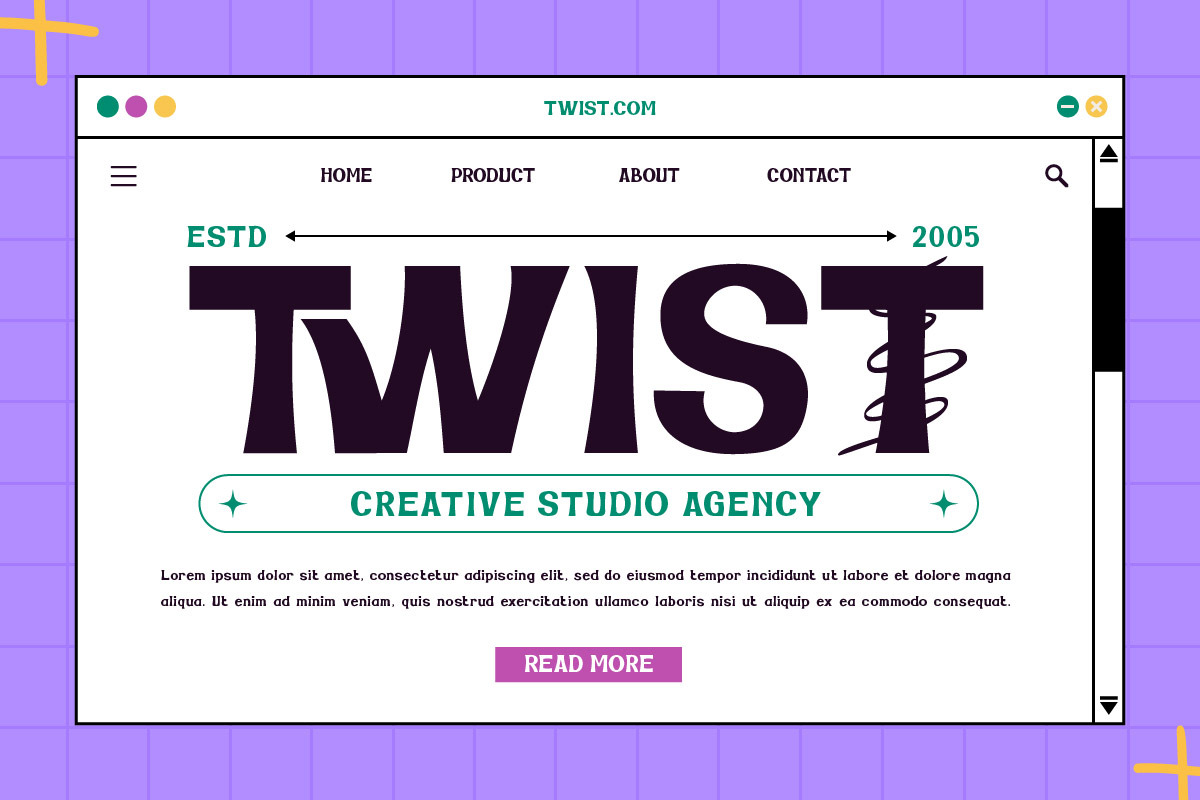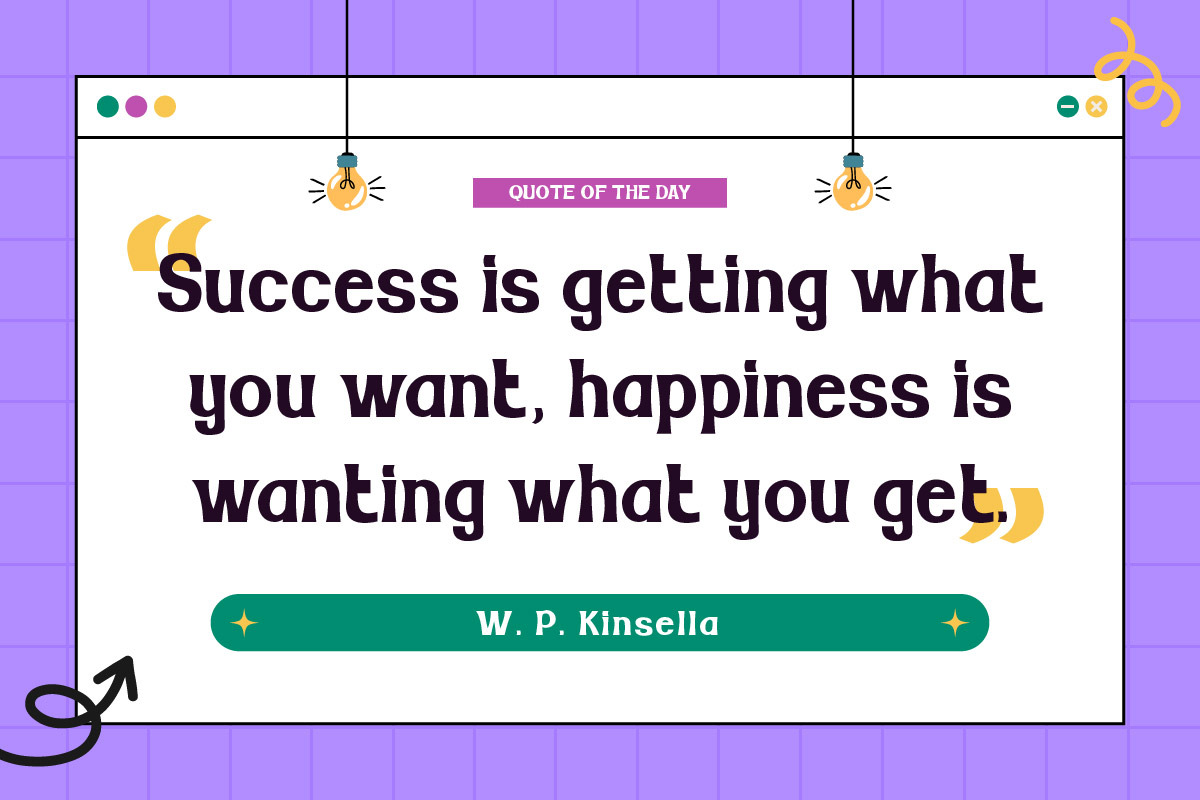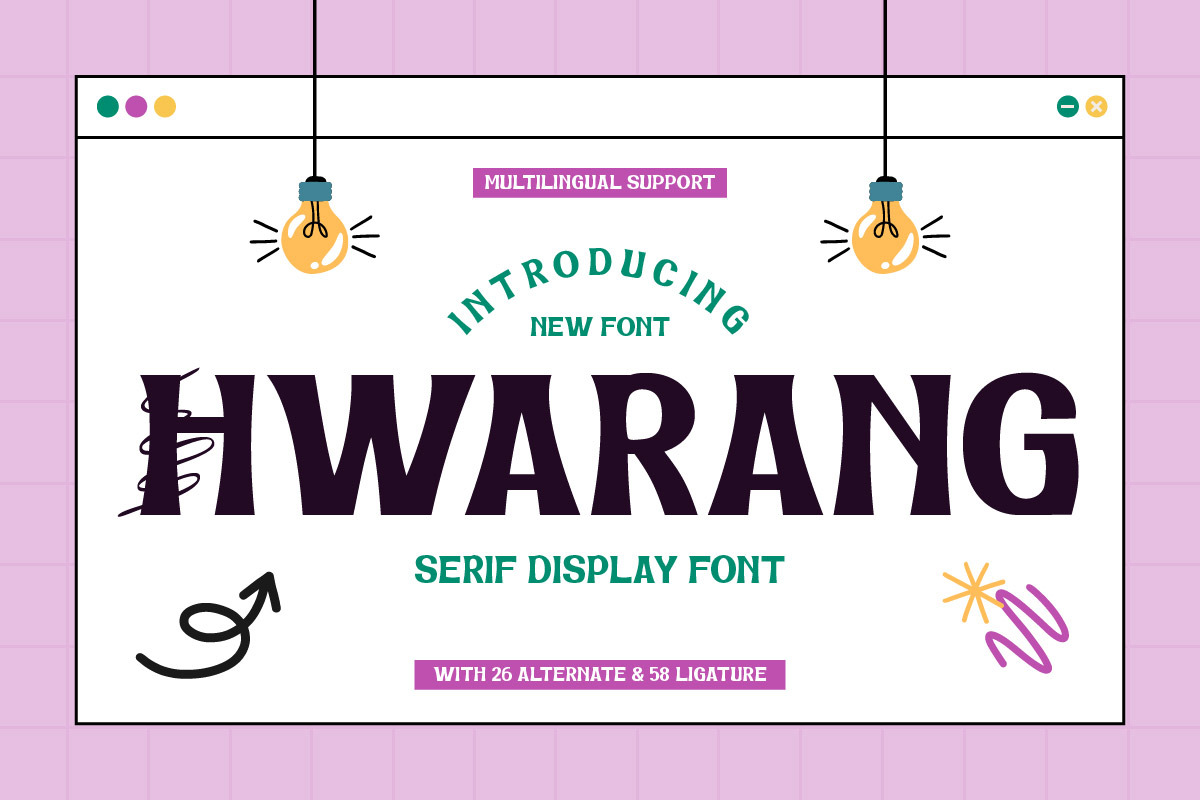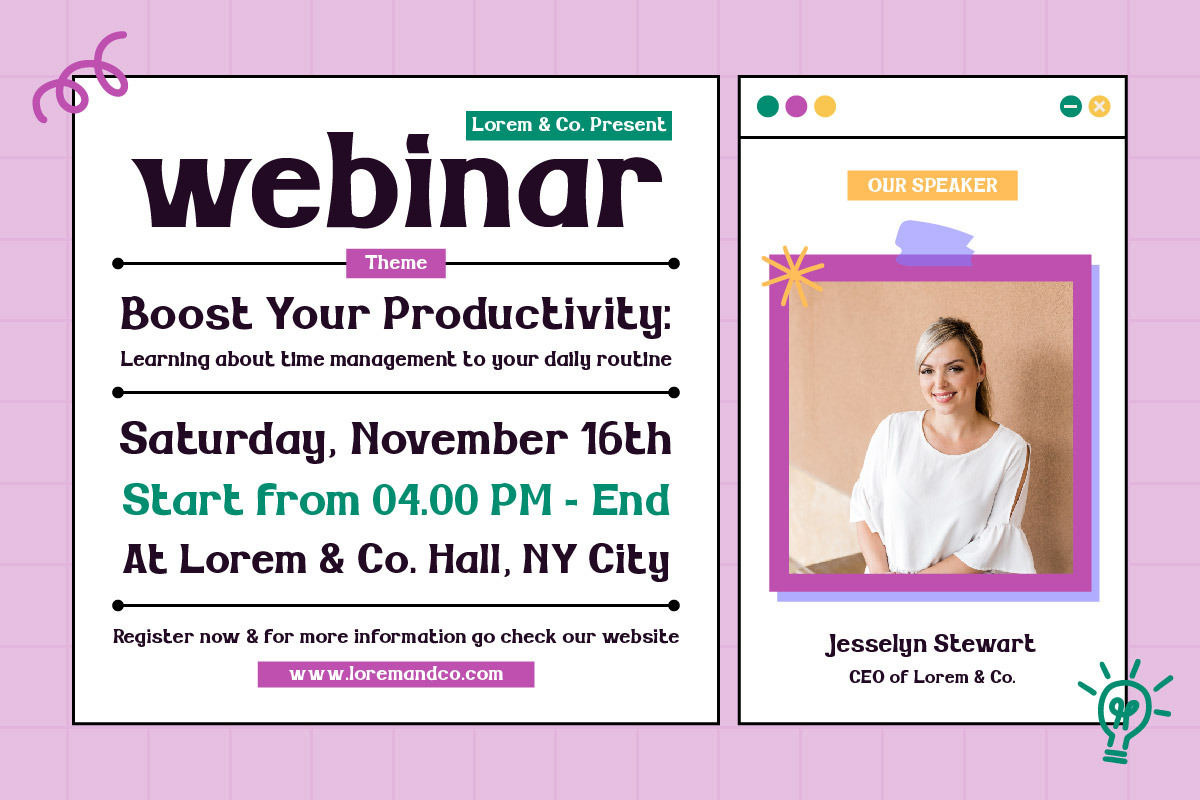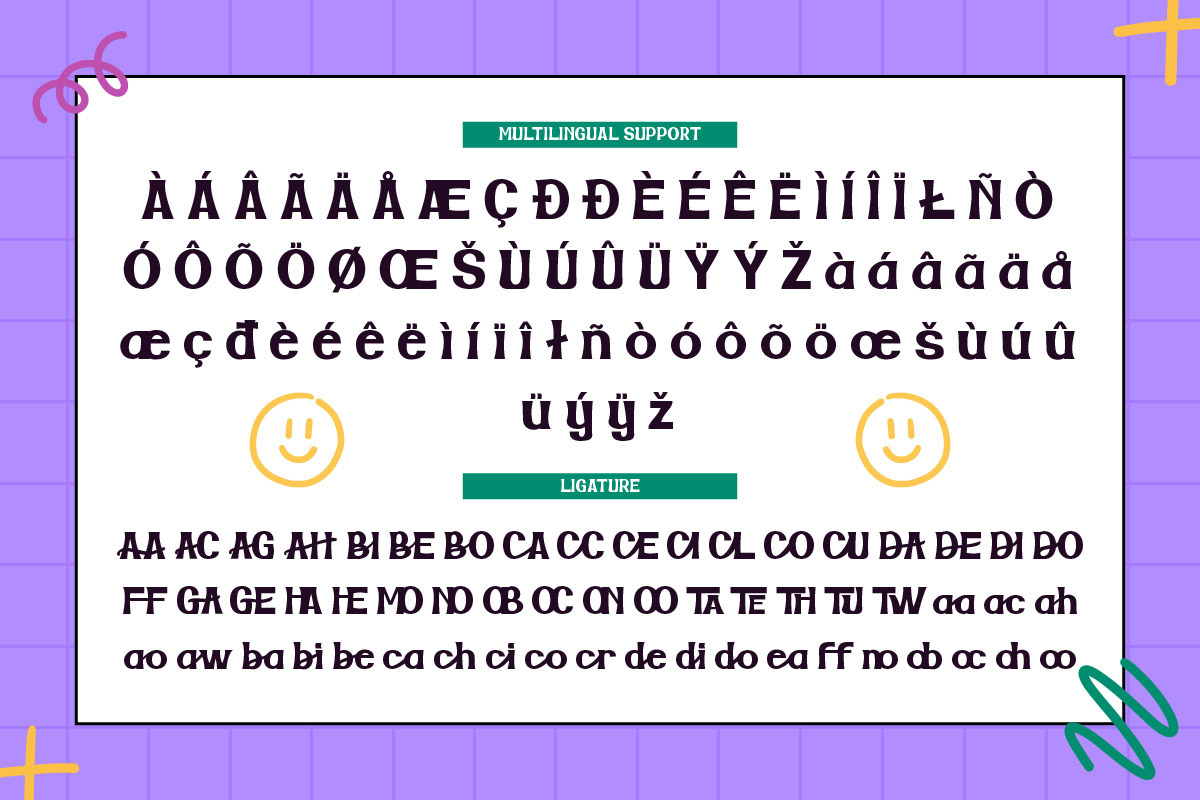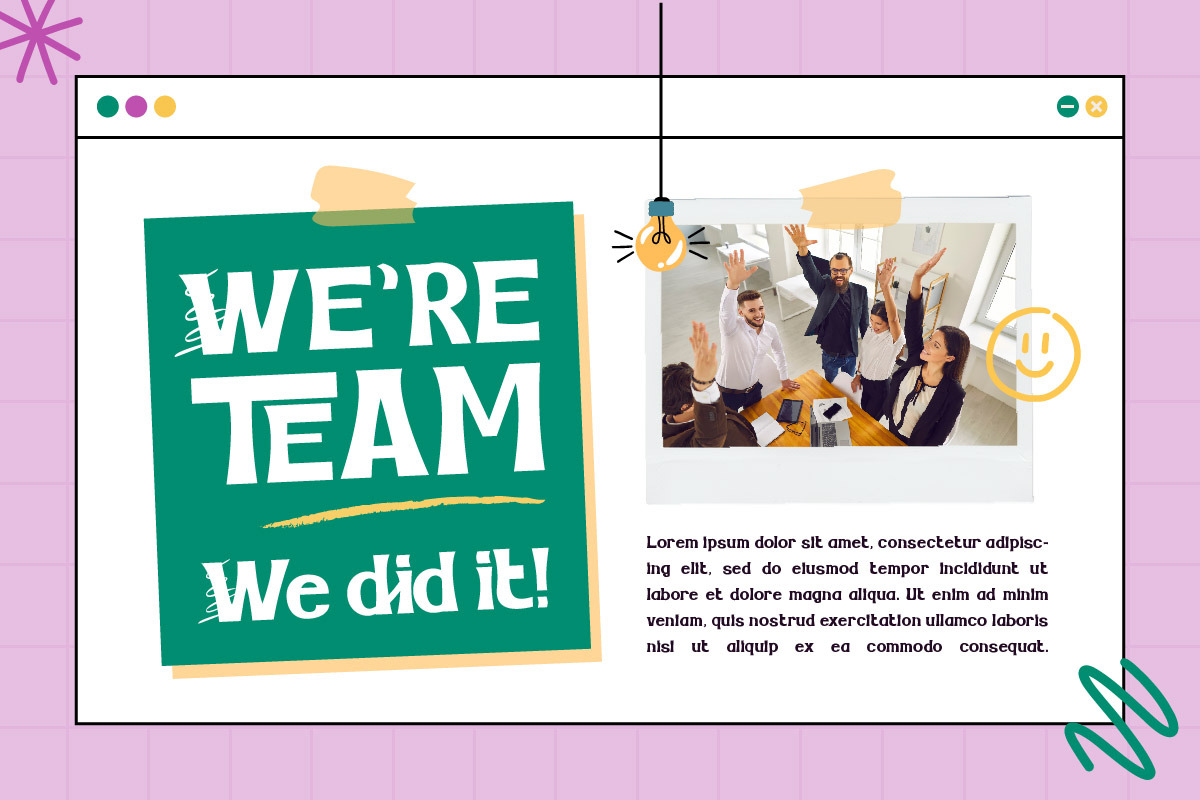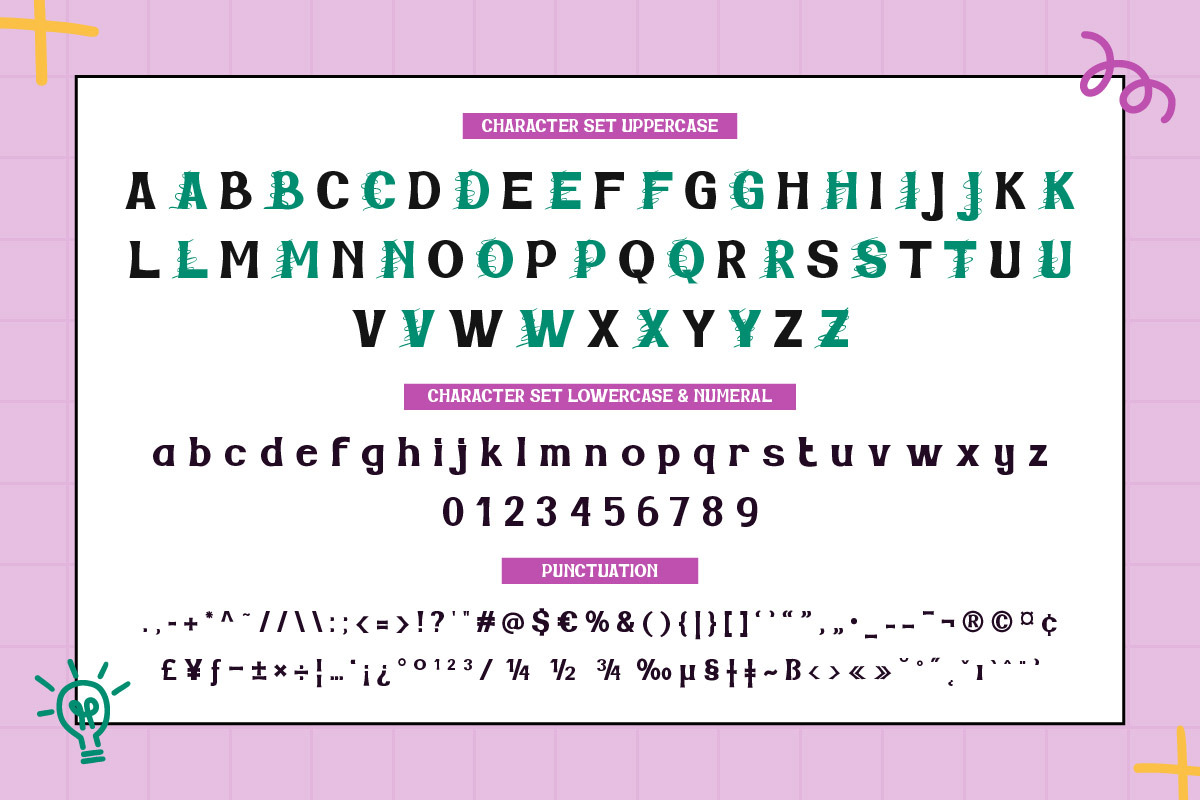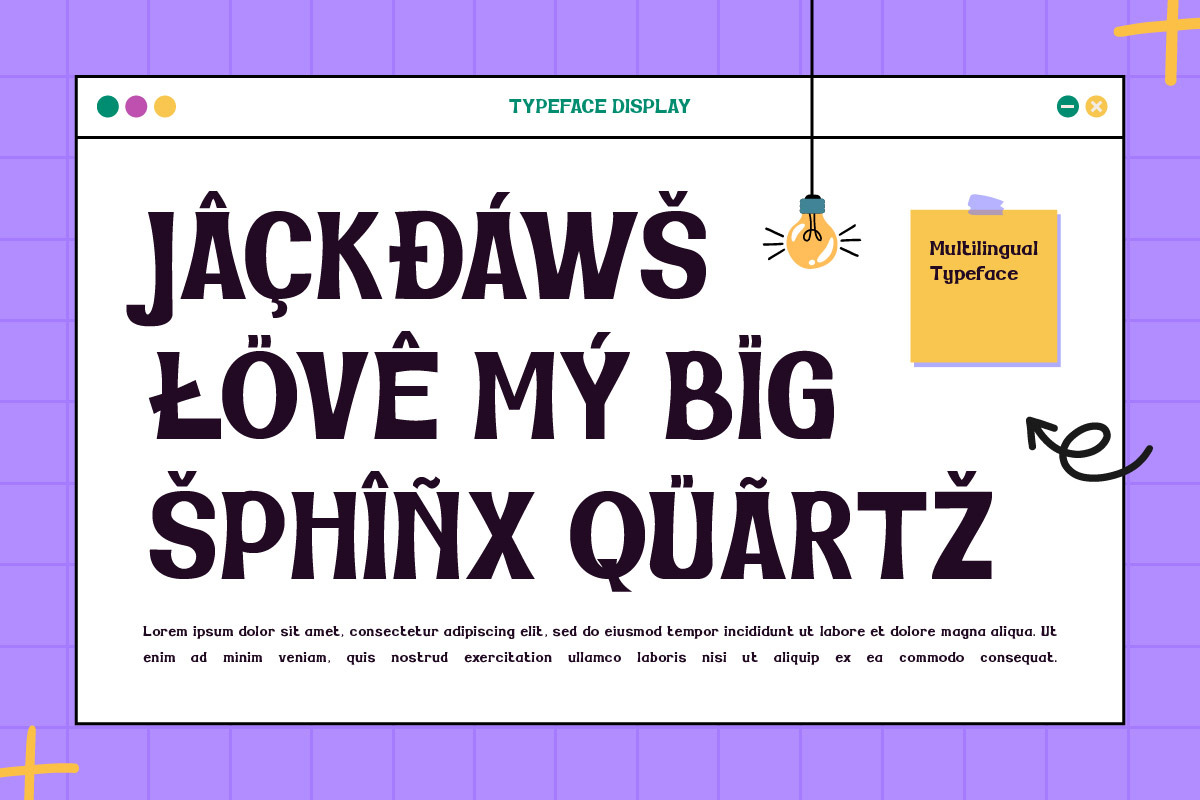
Hwarang - Display Font
Hwarang is a font that inspires creativity. This display font is all about thinking outside the box. Its unique, artistic characters make it perfect for creating eye-catching headlines and logos that stand out from the crowd. With Hwarang, your designs won’t just be unique, they’ll be unforgettable. What’s Included:
- Fonts include Multilingual: Support for 85 languages. Afrikaans, Albanian, Asu, Basque, Bemba, Bena, Breton, Catalan, Chiga, Cornish, Croatian, Czech, Danish, Dutch, Embu, English, Esperanto, Estonian, Filipino, Finnish, French, Friulian, Galician, Gusii, Hungarian, Indonesian, Irish, Italian, Kabuverdianu, Kalenjin, Kamba, Kikuyu, Kinyarwanda, Latvian, Lithuanian, Lower, Sorbian, Luo, Luxembourgish, Luyia, Machame, Makhuwa-Meetto, Makonde, Malagasy, Maltese, Manx, Meru, Morisyen, North, Ndebele, Norwegian Bokmål, Norwegian Nynorsk, Nyankole, Oromo, Polish, Portuguese, Quechua, Romanian, Romansh, Rombo, Rundi, Rwa, Samburu, Sango, Sangu, Scottish, Gaelic, Sena, Serbian, Shambala, Shona, Slovak, Slovenian, Soga, Somali, Spanish, Swahili, Swedish, Swiss German, Taita, Teso, Turkish, Upper Sorbian, Uzbek (Latin), Volapük, Vunjo, Walser, Zulu.